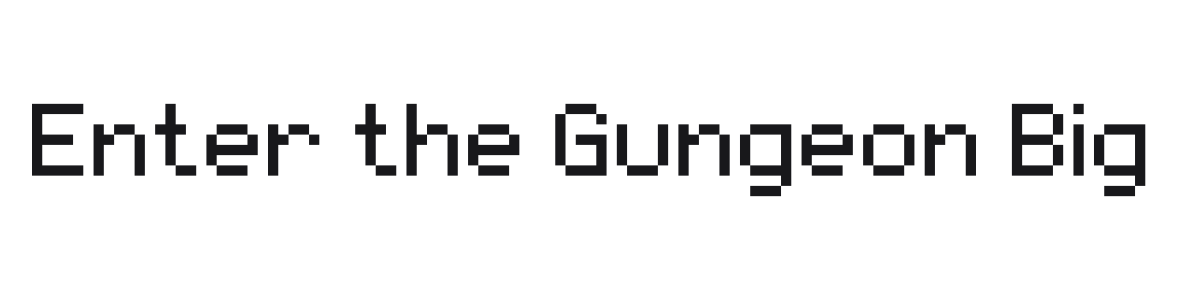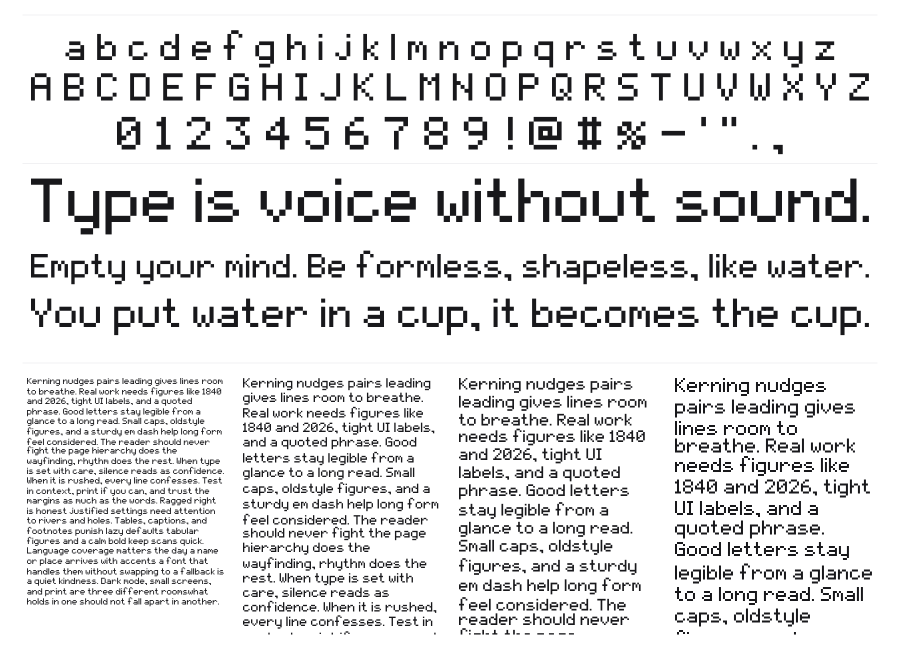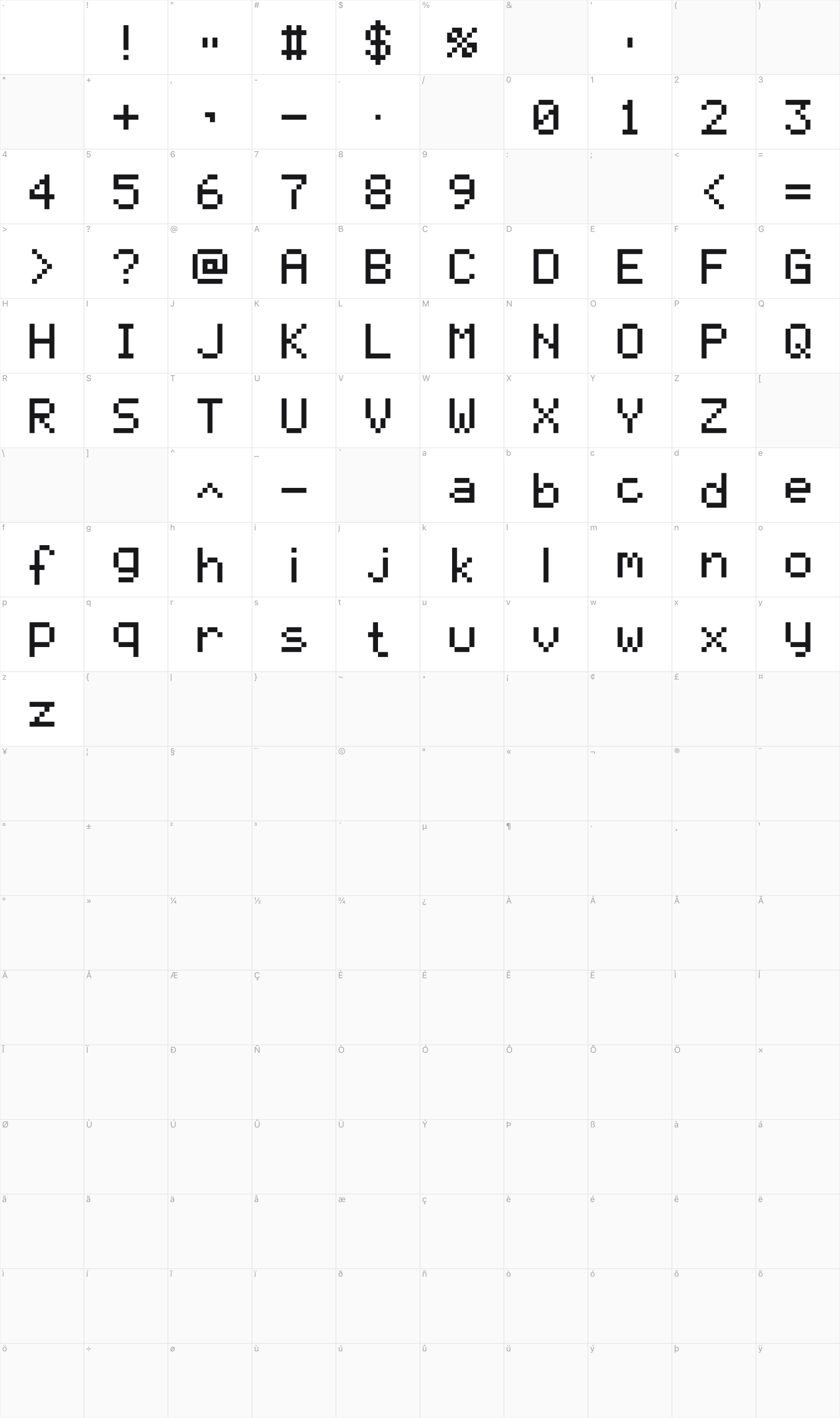
Enter the Gungeon Big
Enter the Gungeon Big is a faithful pixel bitmap recreation of the title font used in the indie roguelike Enter the Gungeon. Built on a coarse grid with chunky, evenly weighted strokes, it radiates that unmistakable 8-bit screen energy. The bold, blocky proportions make it best suited for game UI, retro-themed titles, and pixel-art projects.